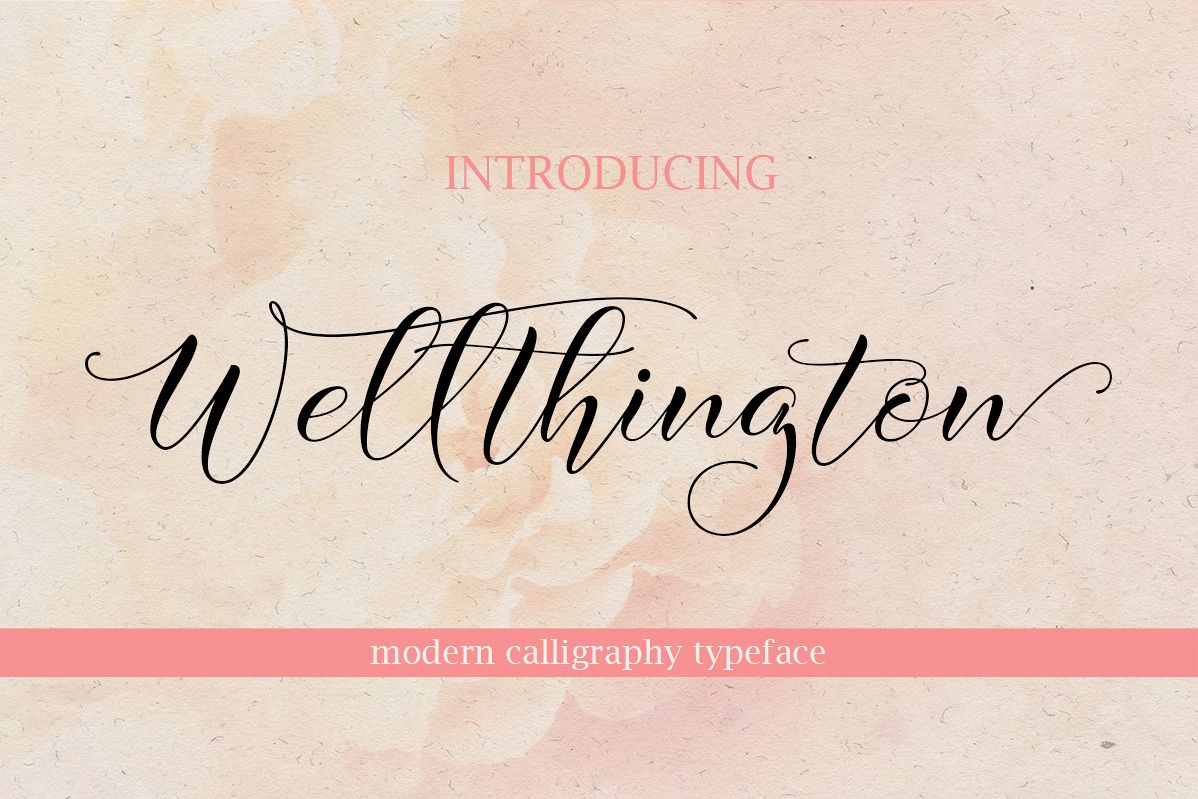
Wellthington
Wellthington is a cute & fresh font.
Wellthington - fresh and solid for you to enjoy it all the time.Wellthington comes with uppercase, lowercase, numerals, punctuations and so many variations on each characters include opentype alternates, common ligatures and also additional swash to let you customise your designs.This script comes with two type, the regular and inline.This font is suitable to use as a logotype, apparel, wedding invitation, signboard, sport club, motor / car, etc.Also supported PUA encoded. Simply copy and paste the alternate characters using the Character Map (Windows), Font Book (Mac) or a software program such as PopChar (for Windows and Mac).